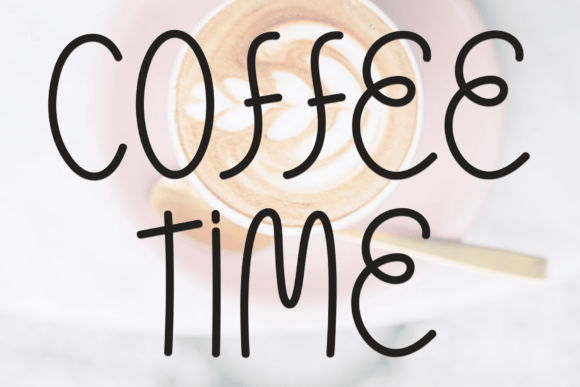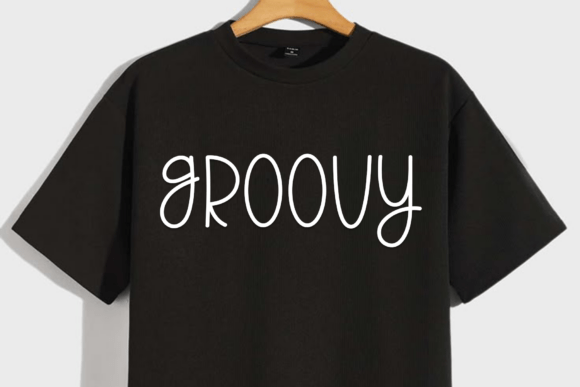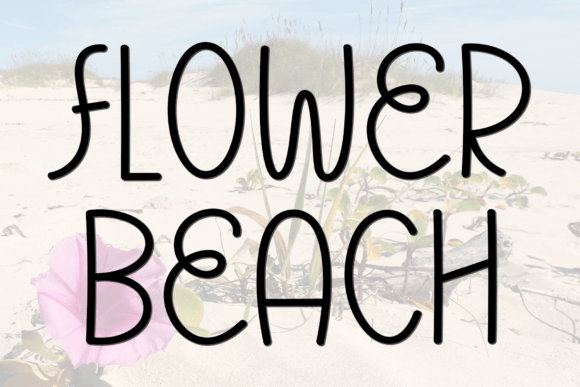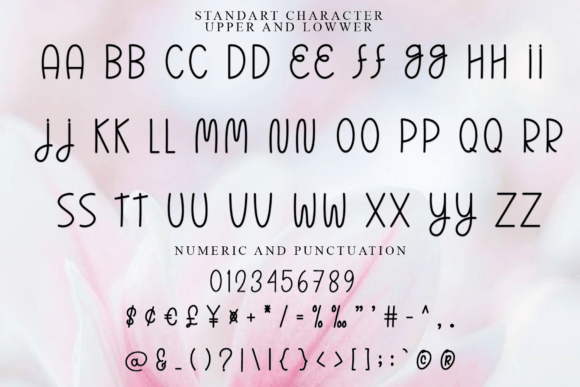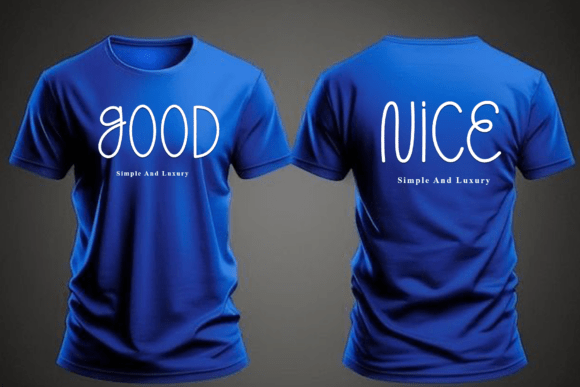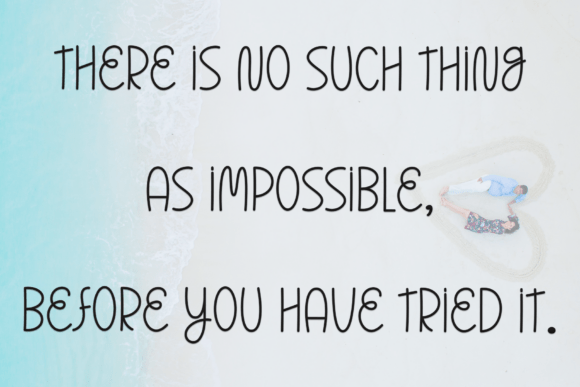
Dream Story Font: A Festive and Merry Typeface for Holiday Designs
The holiday season is upon us, and with it comes the desire to create festive and merry designs that capture the spirit of the season. One of the key elements in creating such designs is the font used to convey the message. This is where the Dream Story Font comes in – a decorative typeface that adds a touch of enchantment to your designs. In this article, we’ll explore the features and benefits of the Dream Story Font, and how it can elevate your holiday-themed projects.
Dream Story Font is a carefully crafted typeface that embodies the joy and magic of the holiday season. Its decorative elements and whimsical flair make it perfect for creating greeting cards, gift tags, and other holiday-themed projects. The font’s design is reminiscent of traditional holiday fonts, but with a modern twist that makes it stand out from the crowd.
Whether you’re a designer, crafter, or DIY enthusiast, the Dream Story Font is an excellent choice for adding a touch of festive cheer to your projects. The font’s playful and enchanting nature makes it ideal for creating designs that evoke a sense of nostalgia and wonder.
Perfect for Holiday Designs
The Dream Story Font is specifically designed for holiday-themed projects, making it a versatile and valuable addition to your font collection. Its decorative elements and whimsical flair make it perfect for:
- Greeting cards: Create festive and personalized greeting cards that capture the spirit of the season.
- Gift tags: Add a touch of magic to your gift tags with the Dream Story Font’s decorative elements and whimsical flair.
- Holiday-themed projects: From invitations to party decorations, the Dream Story Font is perfect for creating designs that evoke a sense of festive cheer.
One of the standout features of the Dream Story Font is its PUA (Private Use Area) encoding. This means that you can access all of the amazing glyphs and ligatures with ease, giving you unparalleled creative control over your designs.
With the Dream Story Font, you can easily insert decorative elements, such as snowflakes, holly leaves, and Christmas trees, into your designs. The font’s PUA encoding also makes it easy to create custom ligatures and glyphs, allowing you to add a personal touch to your designs.
Bringing a Cheerful and Nostalgic Ambiance to Your Words
The Dream Story Font is designed to evoke a sense of cheer and nostalgia in your designs. Its whimsical flair and decorative elements work together to create a sense of wonder and enchantment, making it perfect for holiday-themed projects.
Whether you’re creating designs for personal use or for clients, the Dream Story Font is an excellent choice for adding a touch of festive cheer to your words. Its nostalgic ambiance makes it perfect for creating designs that evoke a sense of tradition and heritage.
Let Your Typography Shine with the Magic of Beautiful Font
The Dream Story Font is a beautiful and enchanting typeface that adds a touch of magic to your designs. Its decorative elements and whimsical flair make it perfect for creating holiday-themed projects that evoke a sense of festive cheer.
With the Dream Story Font, you can let your typography shine with the magic of Beautiful Font. Whether you’re a designer, crafter, or DIY enthusiast, this font is an excellent choice for adding a touch of wonder and enchantment to your designs.
In conclusion, the Dream Story Font is a festive and merry typeface that captures the spirit of the holiday season. Its decorative elements and whimsical flair make it perfect for creating holiday-themed projects that evoke a sense of cheer and nostalgia. With its PUA encoding and ease of use, this font is an excellent addition to any designer’s or crafter’s font collection.